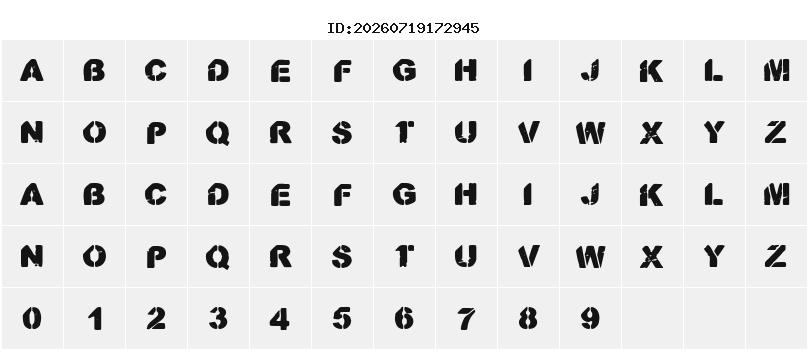
• Font Name: CF Stencil O Rama Stamp
• Full Font Name: CF Stencil O Rama Stamp Regular
• Designer: Steve Cloutier
• Manufacturer: CLoutierFontes
• Description: CF Stencil O Rama Stamp Regular is a font by CLoutierFontes, designed by Steve Cloutier in 2014.
About CF Stencil O Rama Stamp.ttf
CF Stencil O Rama Stamp.ttf is a modern, elegant sans-serif font designed for ultimate readability and visual harmony. Perfect for branding, headlines, web design, and print materials.